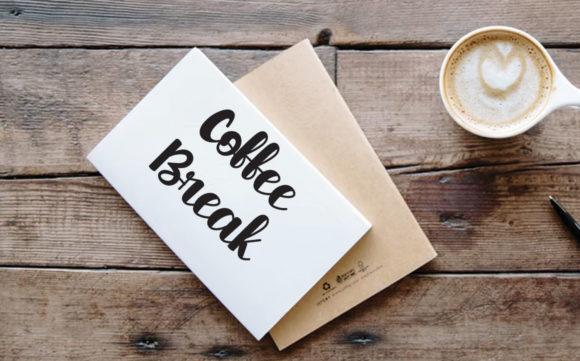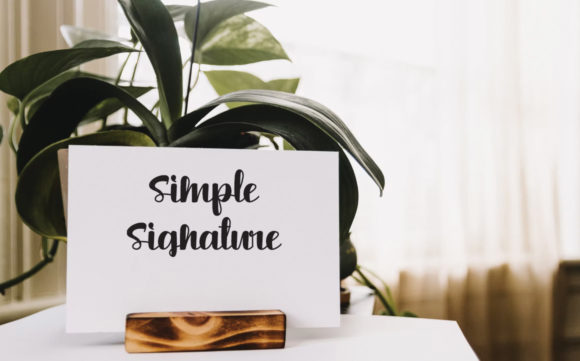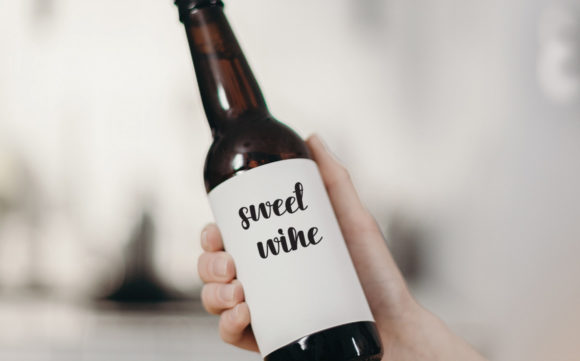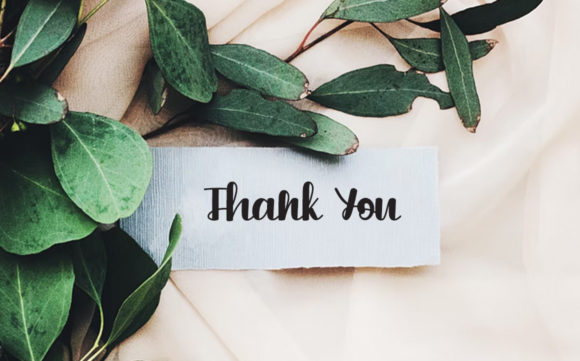
Kawai Mandala Font
About Kawai Mandala Font
Kawai Mandala is a well-balanced and delicate script font that exudes elegance and class. This font was particularly crafted for those who need a beautiful and refreshing look to their designs